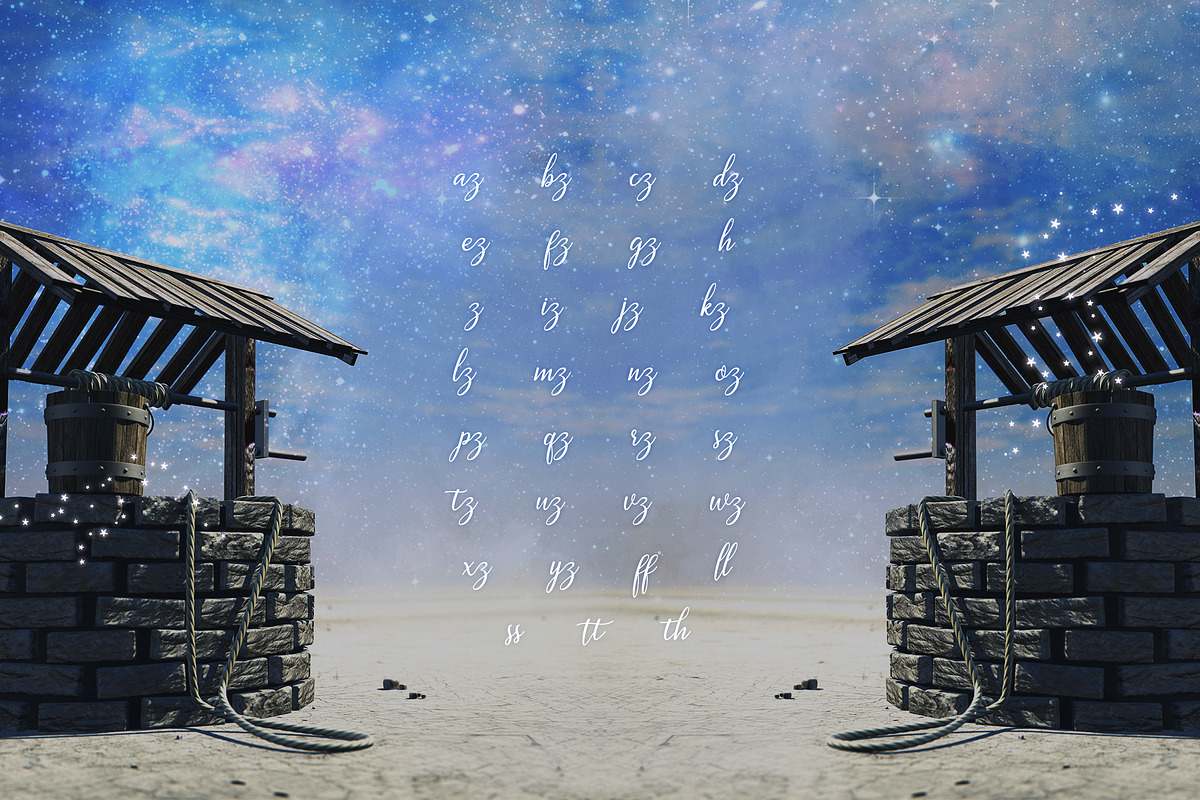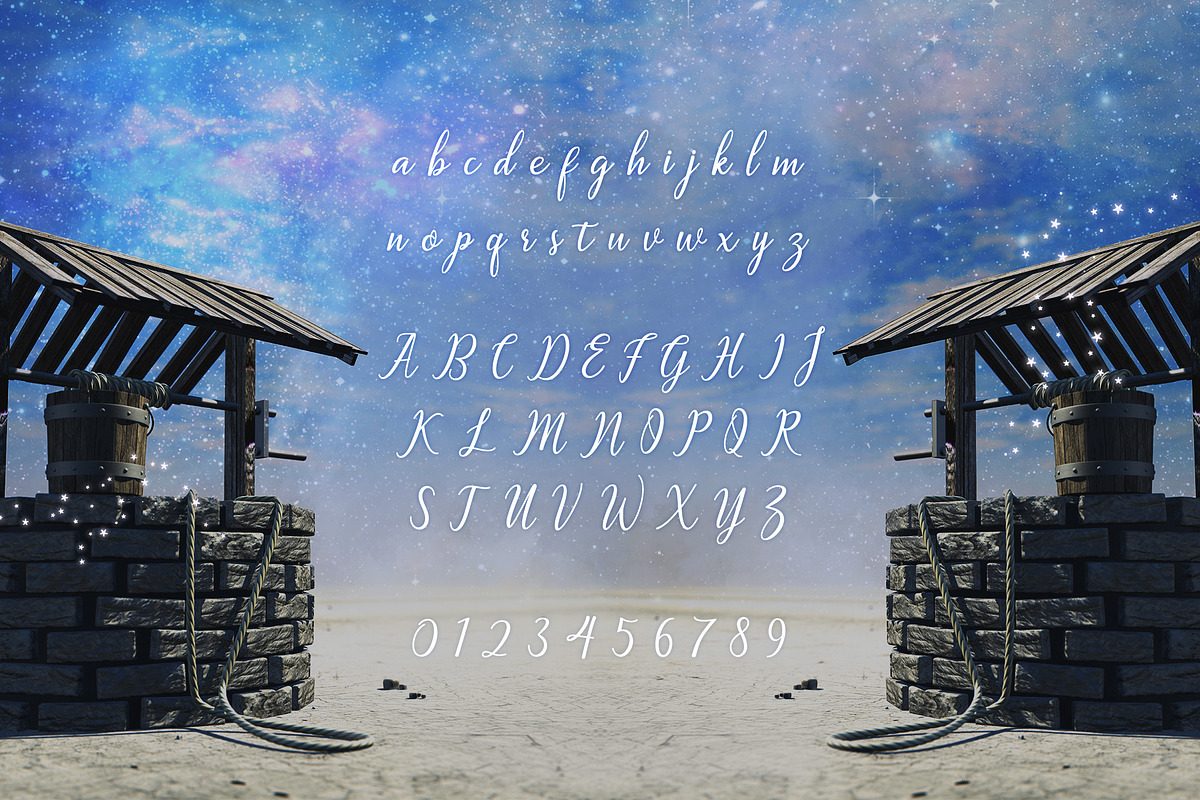
Wishing Well
Wishing Well by Font Bundles is a font selected for branding, posters, packaging, typography.
Why Wishing Well is worth a look
Wishing Well by Font Bundles fits naturally into Branding, posters, packaging, typography.